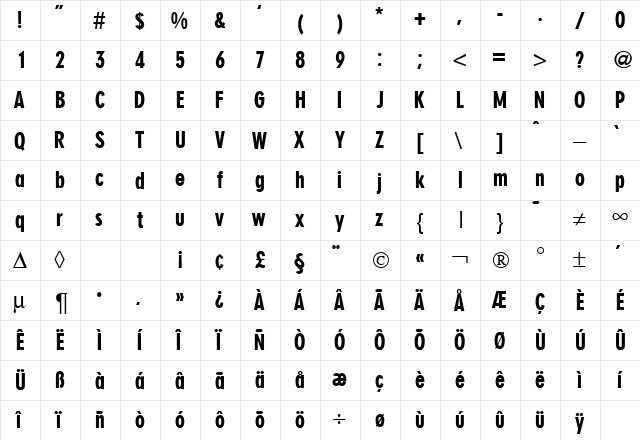
NewSansCond Bold
Design Context for NewSansCond Typeface
NewSansCond takes a measured approach to typography — its balanced proportions and neutral character make it a reliable workhorse for both digital and print work. Its bold stroke weight gives it real presence on the page. The condensed width makes it efficient for tight spaces without sacrificing legibility.
Pro Tip: Use NewSansCond in both headline and body roles to test its range before committing to a single application.